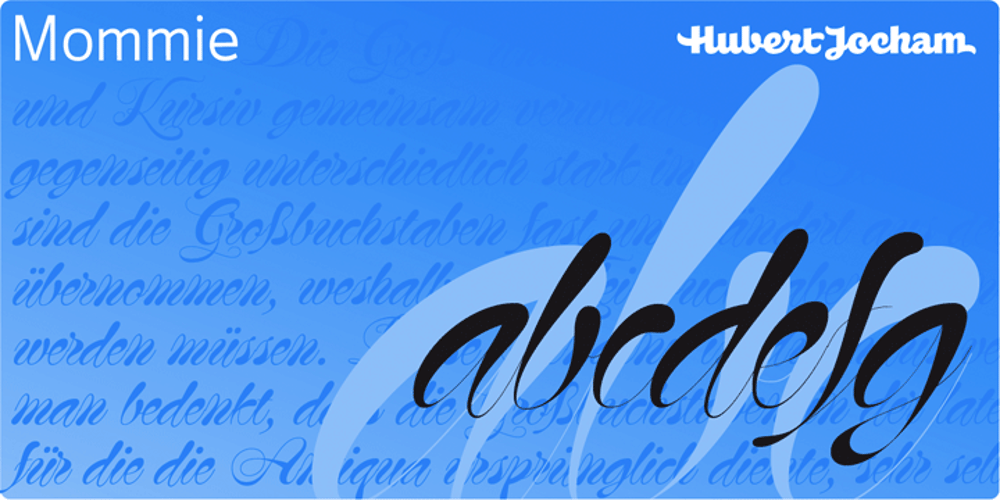
Mommie
Mommie font
Mommie Font Family was designed by Hubert Jocham and published by Hubert Jocham Type. Mommie contains 3 styles and family package options. In the early 1980s, at the start of my career, I had the opportunity to work in a print shop with classic lead setting. In those days I would study issues of U&lc magazine from ITC. What really caught my attention were scripts in the Spencerian style. I’ve been fascinated by this American penmanship tradition ever since. A few years ago I developed a font. Boris Bencic used it when he was redesigning L’Officiel magazine in Paris. I took these initial forms and developed them into the font Mommie when I started my own foundry. Although I usually design text typefaces, working on Mommie taught me how complex it can be to create a script headline font. The biggest challenge in this process has been to keep it alive and fresh. The Regular weight is only made for very big headlines. The thin lines with the bold drops are very elegant. For smaller sizes use the Medium and Small weight. It won the TDC 2008 award and was Judges Choice of Christian Schwartz.